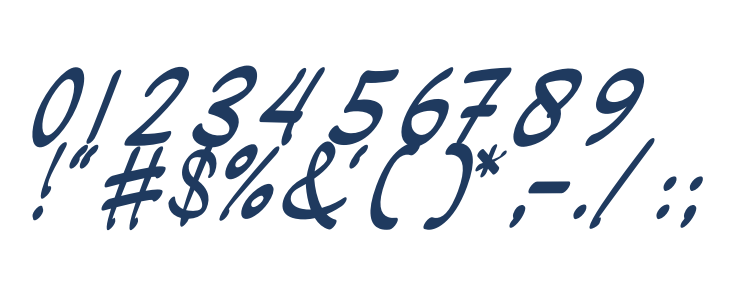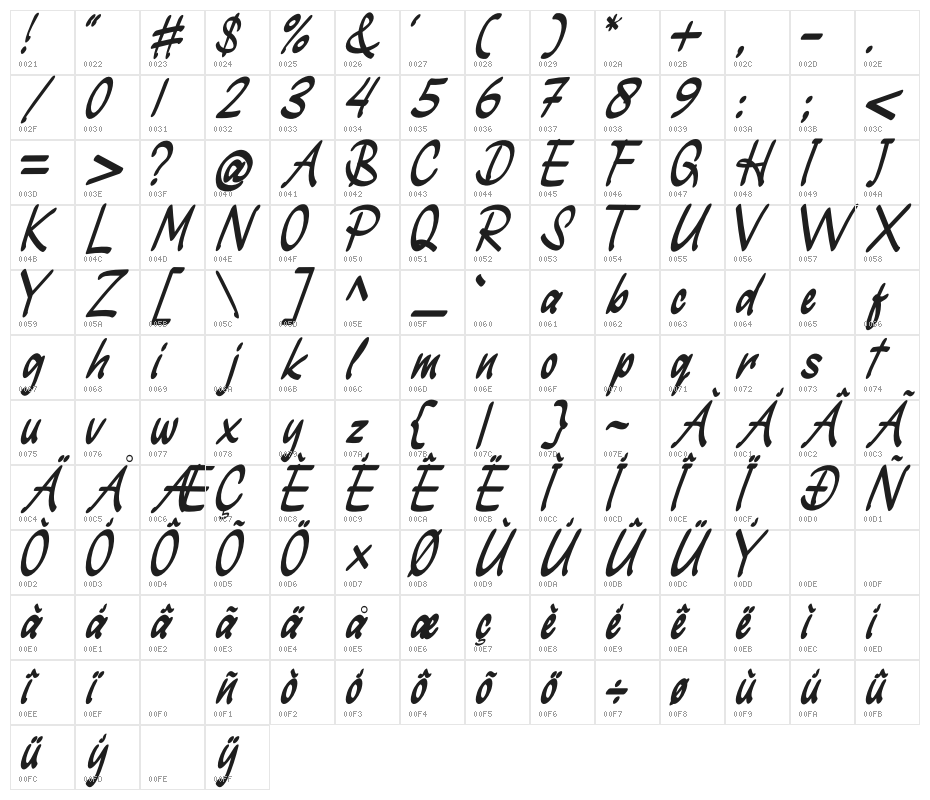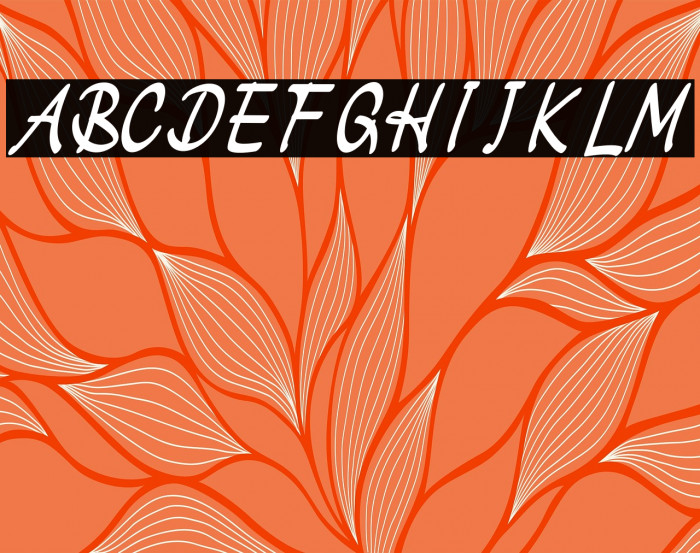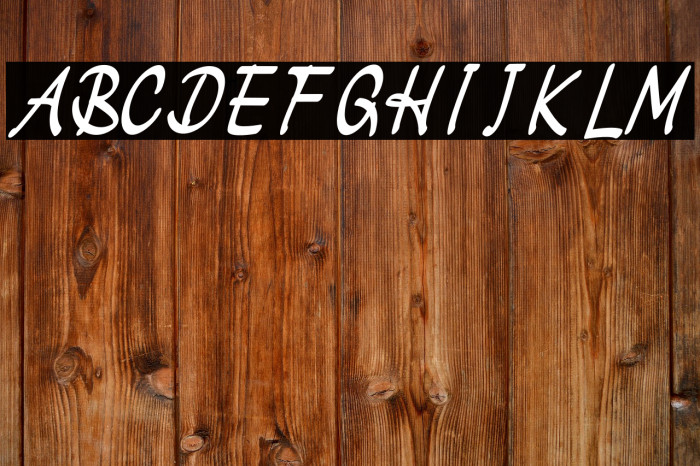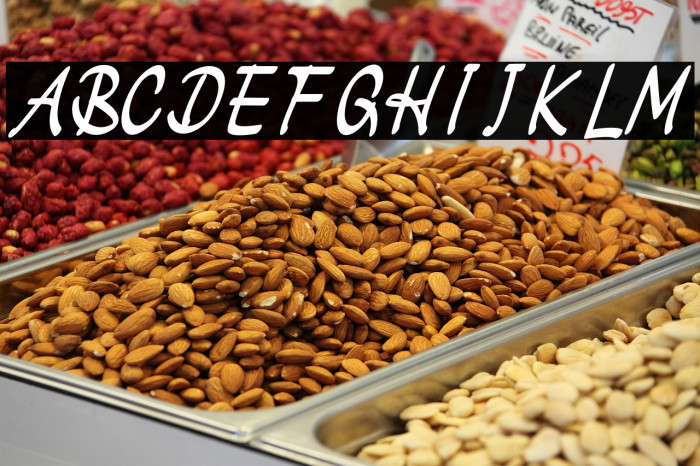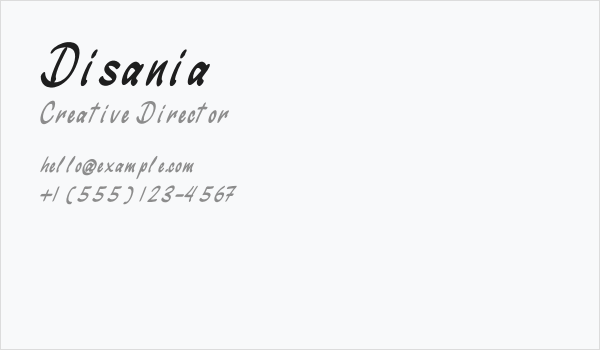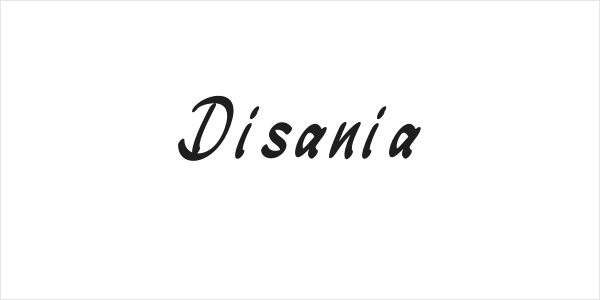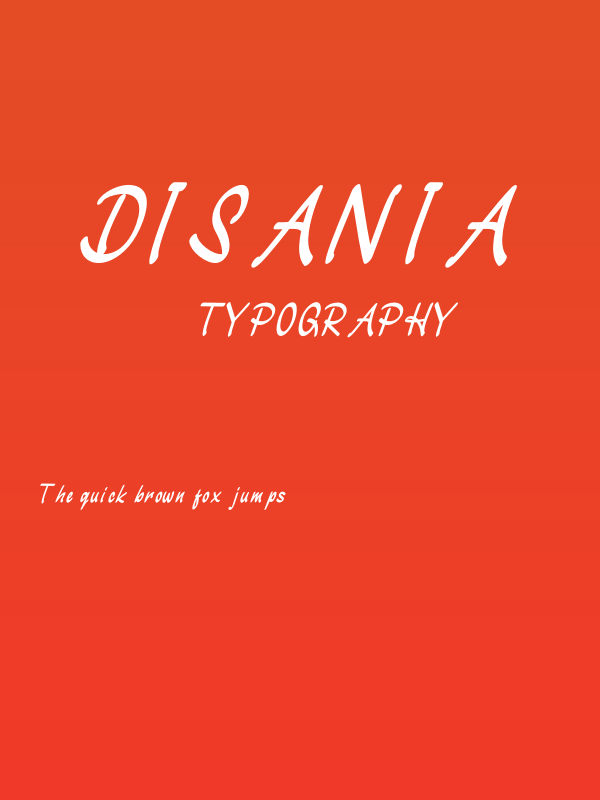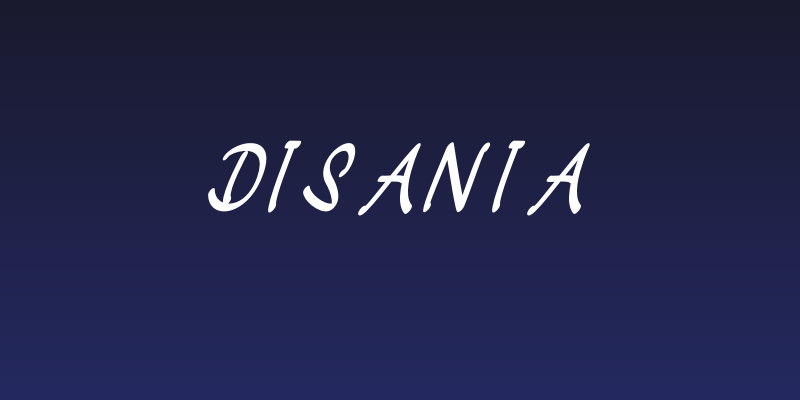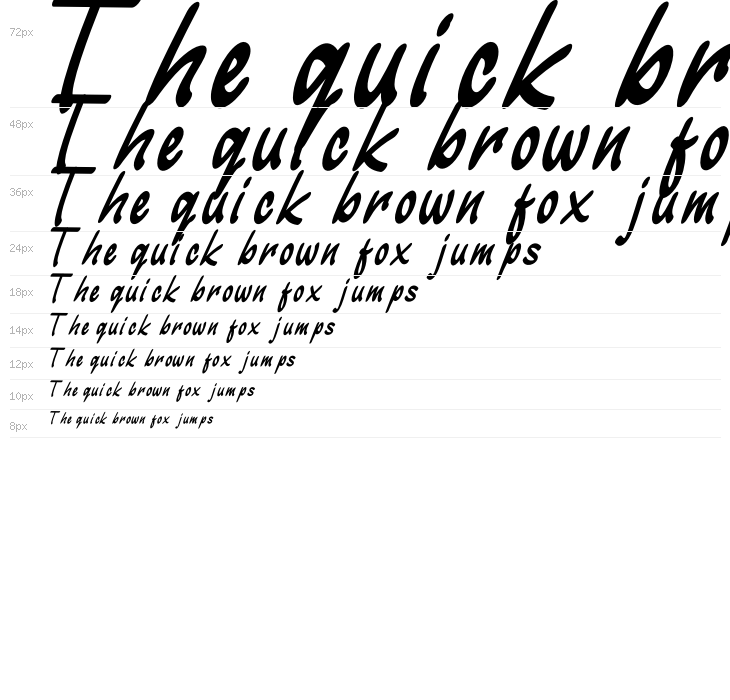
Disania Font
Disania Description
This font exudes a dynamic and energetic feel, characterized by its fluid, cursive style that mimics natural handwriting. The letters are slightly slanted, giving a sense of motion and elegance. The strokes are smooth and connected, with a consistent flow that enhances readability while maintaining a stylish appearance. The uppercase letters are bold and prominent, while the lowercase letters are more delicate, creating a balanced contrast. The numerals and special characters maintain the same fluidity, ensuring a cohesive look across all text elements.
| Use Case | Logos, Invitations, Greeting Cards |
| Proposed Projects | Ideal for invitations, greeting cards, branding, and any project that requires a personal, elegant touch. |